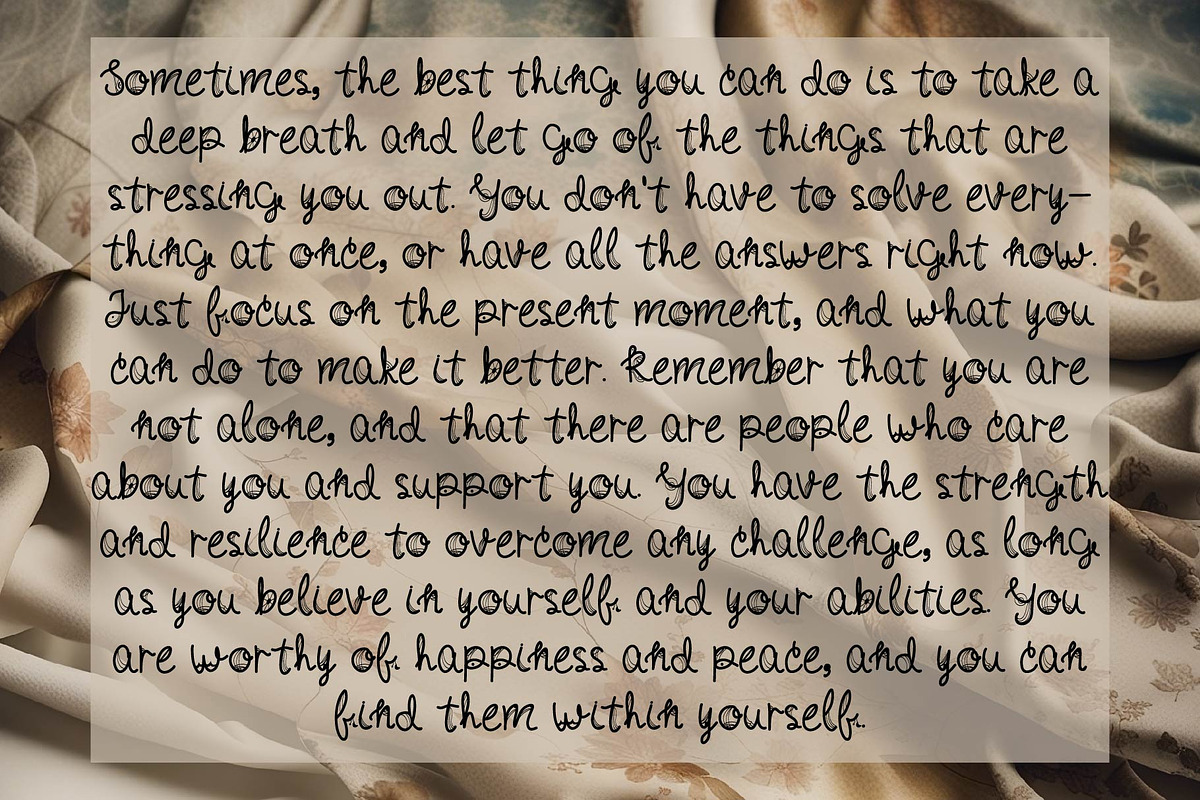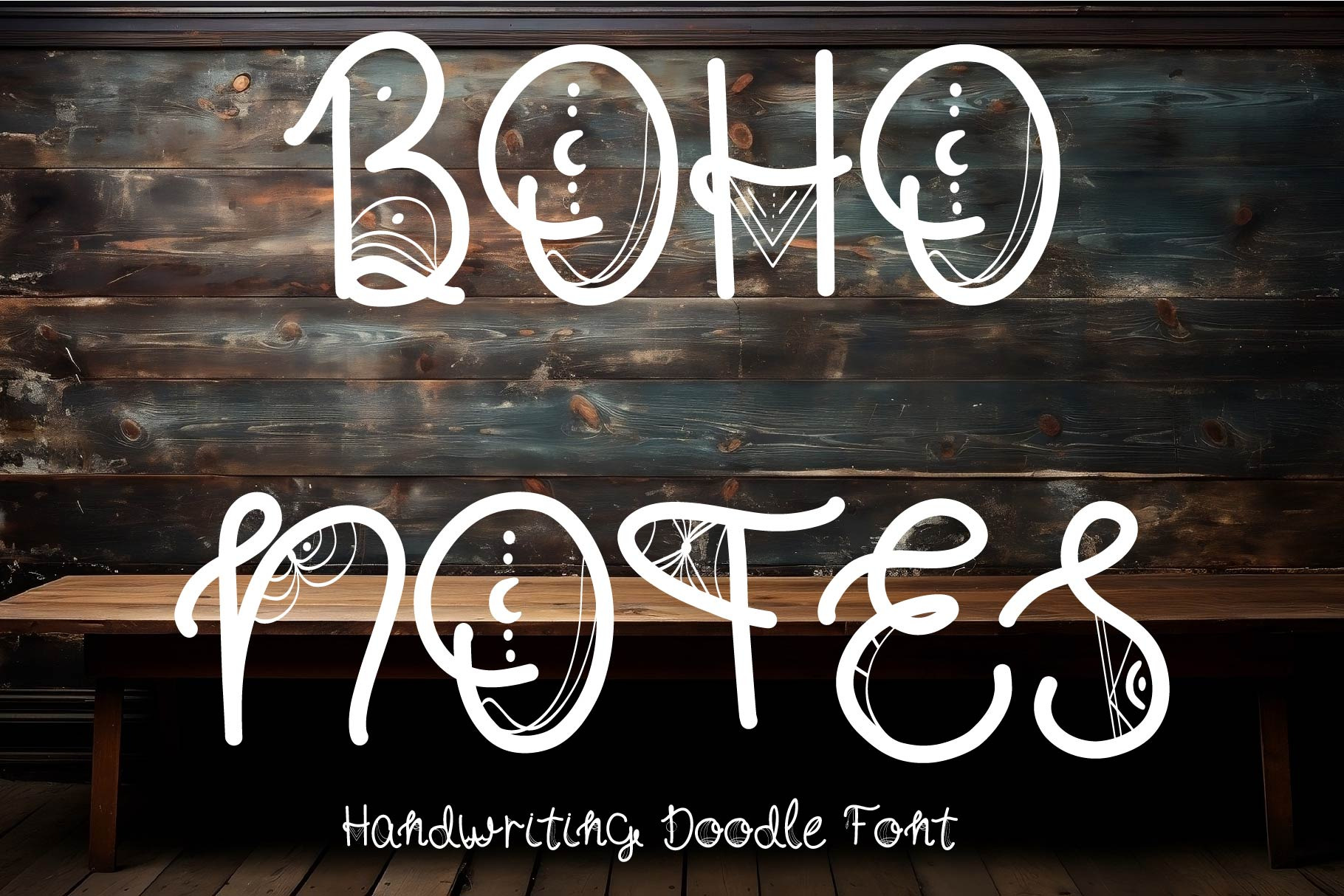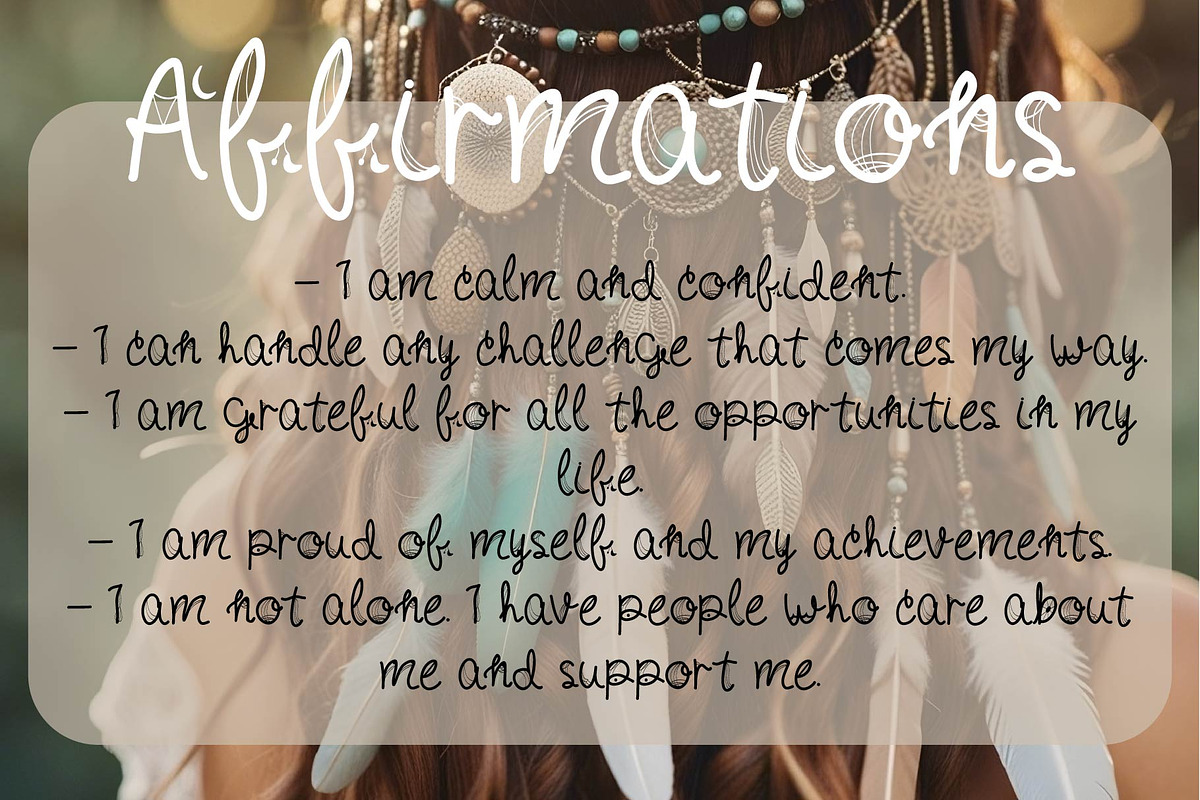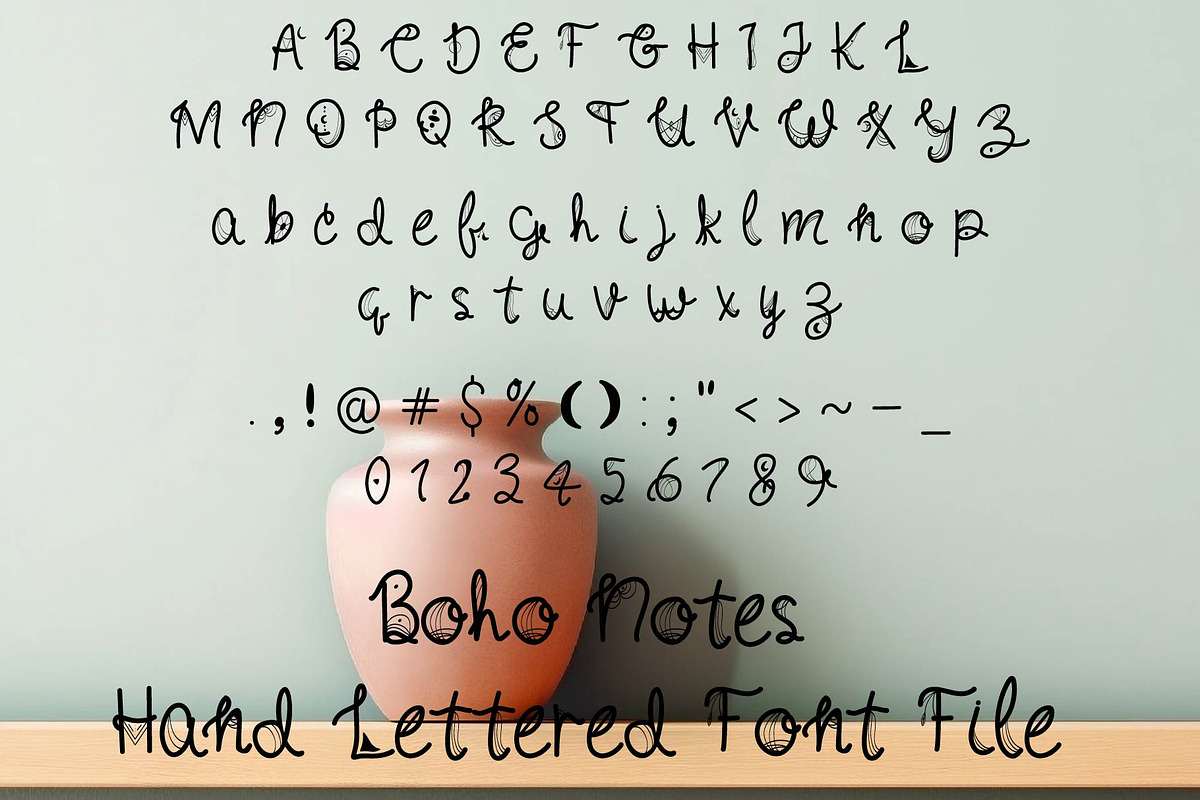
Boho Handwritten Decorative Font
Boho Notes
Boho Notes is a decorative display font with boho themed ornaments on the letters. It is handwritten and unique, perfect for adding some flair to your designs. Whether you want to create invitations, posters, logos, or social media graphics, Boho Notes will make your text stand out.
- Handwritten and unique style
- Boho themed ornaments on the letters
- Uppercase and lowercase letters
- Numbers and punctuation marks
Boho Notes has 87 glyphs, including:
- 26 uppercase letters
- 26 lowercase letters
- 10 numbers
- punctuation marks